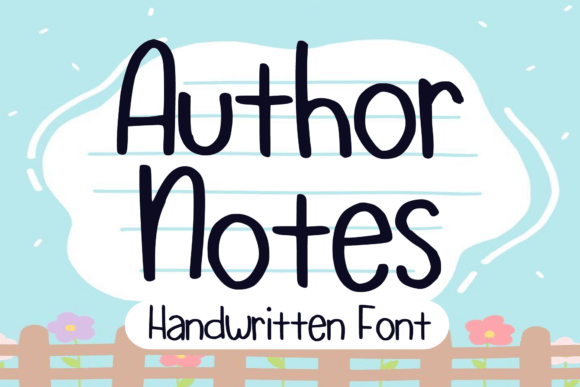
Introducing Author Notes Font: Elevate Your Designs to the Next Level
In the world of design, typography plays a crucial role in conveying messages, expressing creativity, and capturing the audience’s attention. When it comes to selecting the perfect font for your design projects, the options can be overwhelming. However, if you’re looking for a versatile and stylish font that can elevate your designs to the highest level, look no further than Author Notes Font.
What is Author Notes Font?
Author Notes Font is a modern, daily font designed to be suitable for everyday use. Its clean and elegant design makes it perfect for a wide range of design projects, from casual to professional. The font’s versatility is one of its standout features, allowing you to use it for various design ideas, such as stickers, t-shirt designs, logo designs, magazine or book covers, comics, cartoon drawings, and many more.
Key Features of Author Notes Font
- Versatility: Author Notes Font is designed to be versatile, making it suitable for a wide range of design projects.
- Elegant Design: The font features a clean and elegant design that will add a touch of sophistication to your designs.
- Easy to Read: The font is easy to read, making it perfect for body text, headings, and titles.
- High-Quality: Author Notes Font is a high-quality font that will elevate your designs to the next level.
Design Ideas with Author Notes Font
Author Notes Font is perfect for a wide range of design projects. Here are some design ideas to get you started:
- Stickers: Use Author Notes Font to create eye-catching stickers for laptops, water bottles, or any other surface.
- T-Shirt Designs: Create stylish and trendy t-shirt designs using Author Notes Font.
- Logo Designs: Use Author Notes Font to create amazing logo designs for businesses, brands, or personal projects.
- Magazine or Book Covers: Elevate your magazine or book covers with Author Notes Font.
- Comics and Cartoon Drawings: Add a super cool touch to your comics and cartoon drawings with Author Notes Font.
Benefits of Using Author Notes Font
Using Author Notes Font offers several benefits, including:
- Consistency: Author Notes Font will add a consistent look and feel to your designs.
- Professionalism: The font’s elegant design will give your designs a professional touch.
- Creativity: Author Notes Font will inspire your creativity and help you create unique designs.
- Time-Saving: The font’s versatility will save you time and effort in finding the perfect font for your design projects.
Tips for Using Author Notes Font
Here are some tips for using Author Notes Font:
- Experiment with Font Sizes: Experiment with different font sizes to create visual hierarchy and add emphasis to your designs.
- Combine with Other Fonts: Combine Author Notes Font with other fonts to create a unique and interesting design.
- Use in Different Colors: Use Author Notes Font in different colors to add contrast and create visual interest.
- Pay Attention to Kerning: Pay attention to kerning to ensure that your text is evenly spaced and visually appealing.
In conclusion, Author Notes Font is a versatile and stylish font that can elevate your designs to the next level. Its clean and elegant design makes it perfect for a wide range of design projects, from casual to professional. With its high-quality design and versatility, Author Notes Font is a great addition to any designer’s toolkit.